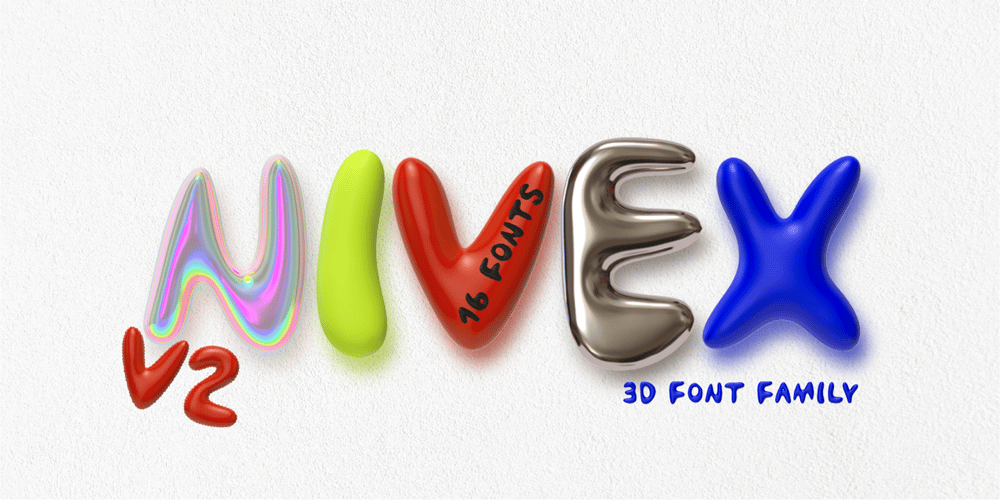
Nivex V2 Font Family was designed by Lauritta Ivanova and published by Luxfont. Nivex V2 contains 17 styles and family package options. Second part of the amazingly diverse Nivex V2 3D font family. New form of glyphs with a super-realistic appearance of letters made of different materials and colors, as well as in transparent glass! Great for creating discount marketing offers.Features:- Real 3D effect- Different colors- Matte, Metal & Glass transparent material- Uppercase and lowercase letters are the same- KerningIMPORTANT:- Check the glyphs in the font before buying!- SVG fonts contain raster letters.- Check it www.colorfonts.wtf- Try a FREE DEMO version before buying.ld.luxfont@gmail.com